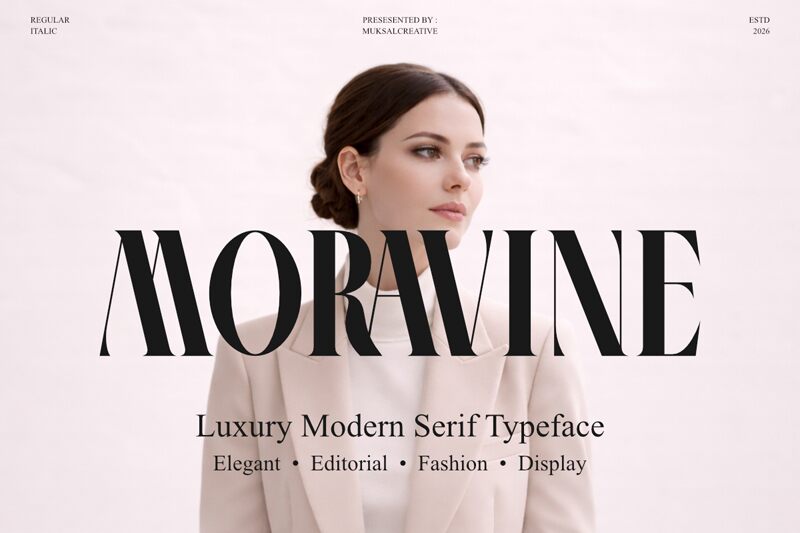
Moravine font by Muksal Creative is a modern free serif font that’s all about elegance and refinement. The sophisticated typeface offers fashionable letters carrying a luxurious and timeless vibe suitable for editorial tasks. Using carefully crafted uppercase and lowercase letters, the font is rich in character and can be applied at different scales.
Refinement is a powerful virtue, and with a typeface like Moravine, this virtue can be easily achieved and presented in your projects. Among possible uses are the publishing industries, magazines, social media, invitations, special occasions, websites, and branding that demands perfection.